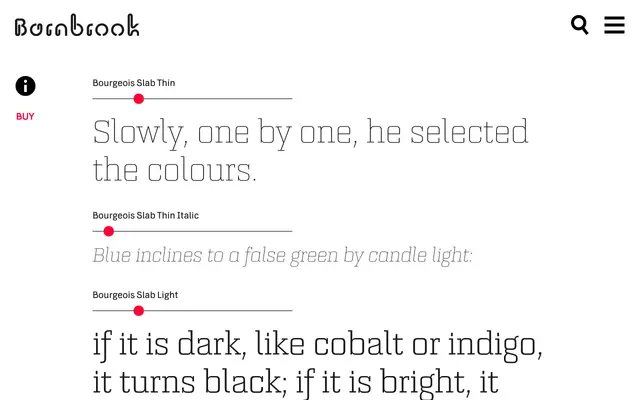
Bourgeois Slab
A geometric slab serif drawn from the same framework as Barnbrook's Bourgeois, adding sturdy serifs and a warmer, more expressive character suited to branding and text-heavy work.
Where Bourgeois is pared-down and ascetic, Bourgeois Slab introduces slab serifs that bring friendliness and authority without abandoning the geometric underpinning. Combined with Bourgeois Slab Condensed, the family spans 24 styles covering a wide range of text sizes and layouts. It is particularly directed at branding, logo work and editorial settings that require a genial but authoritative tone.
Built upon the geometric Bourgeois sans framework, Bourgeois Slab applies slab serifs to an otherwise contemporary geometric structure, echoing mid-century modernism rather than Victorian or transitional precedents.